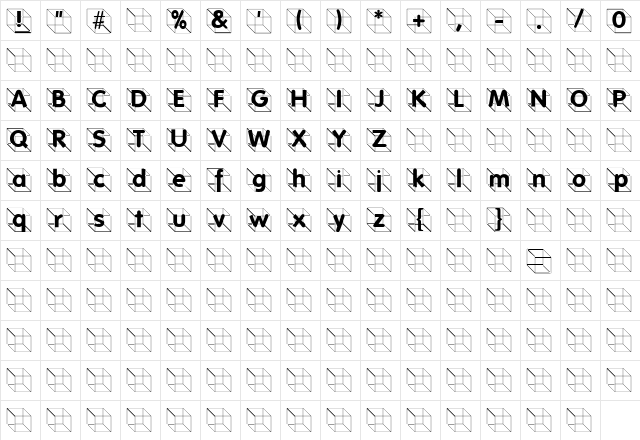
FolksInCube Regular
Design Context for FolksInCube Typeface
FolksInCube takes a measured approach to typography — its balanced proportions and neutral character make it a reliable workhorse for both digital and print work.